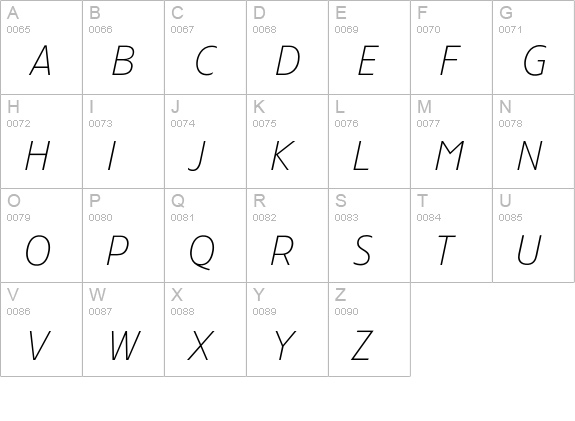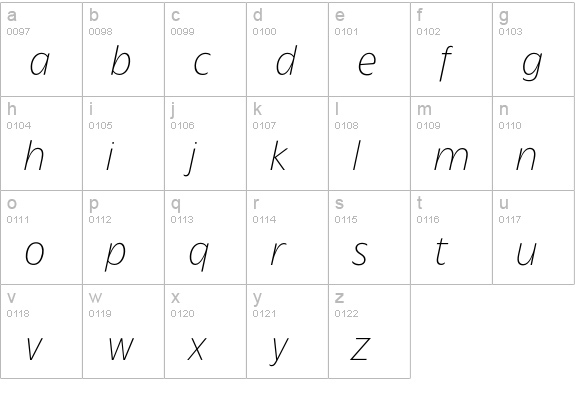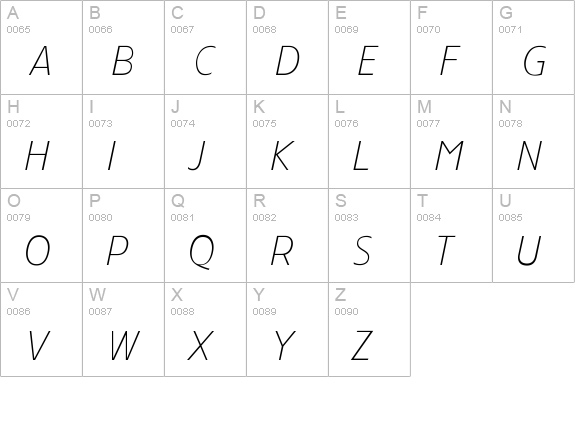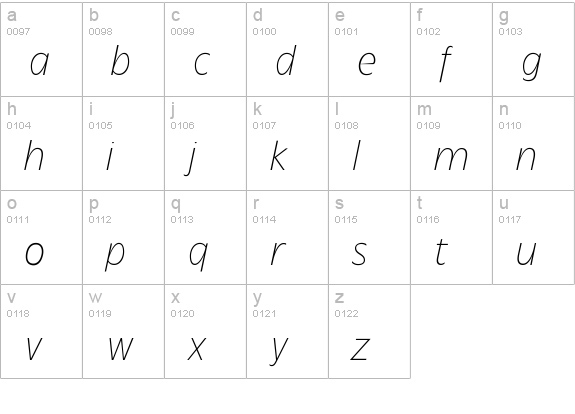
TFForever-ExtraLightItalic font is a stunning and elegant typeface that exudes grace and sophistication. Its delicate and slanted italic design adds a touch of modernity and uniqueness to any project. This exquisite font is perfect for creating captivating headlines, stylish logos, and refined branding materials. With its thin strokes and subtle curves, TFForever-ExtraLightItalic font effortlessly combines beauty with legibility, making it an ideal choice for both print and digital applications. Whether you are designing a fashion magazine layout, a wedding invitation, or a high-end website, this font will effortlessly elevate your design to new levels of elegance. What makes TFForever-ExtraLightItalic font even more appealing is that it is available for free download at FontsMarket.com. Yes, you read that right – this stunning font can be yours without spending a dime. FontsMarket.com is a trusted source for high-quality fonts, and their commitment to providing free fonts like TFForever-ExtraLightItalic font is truly commendable. So, why wait? Enhance your design projects with the enchanting TFForever-ExtraLightItalic font today. Download it for free at FontsMarket.com and let its graceful charm captivate your audience.